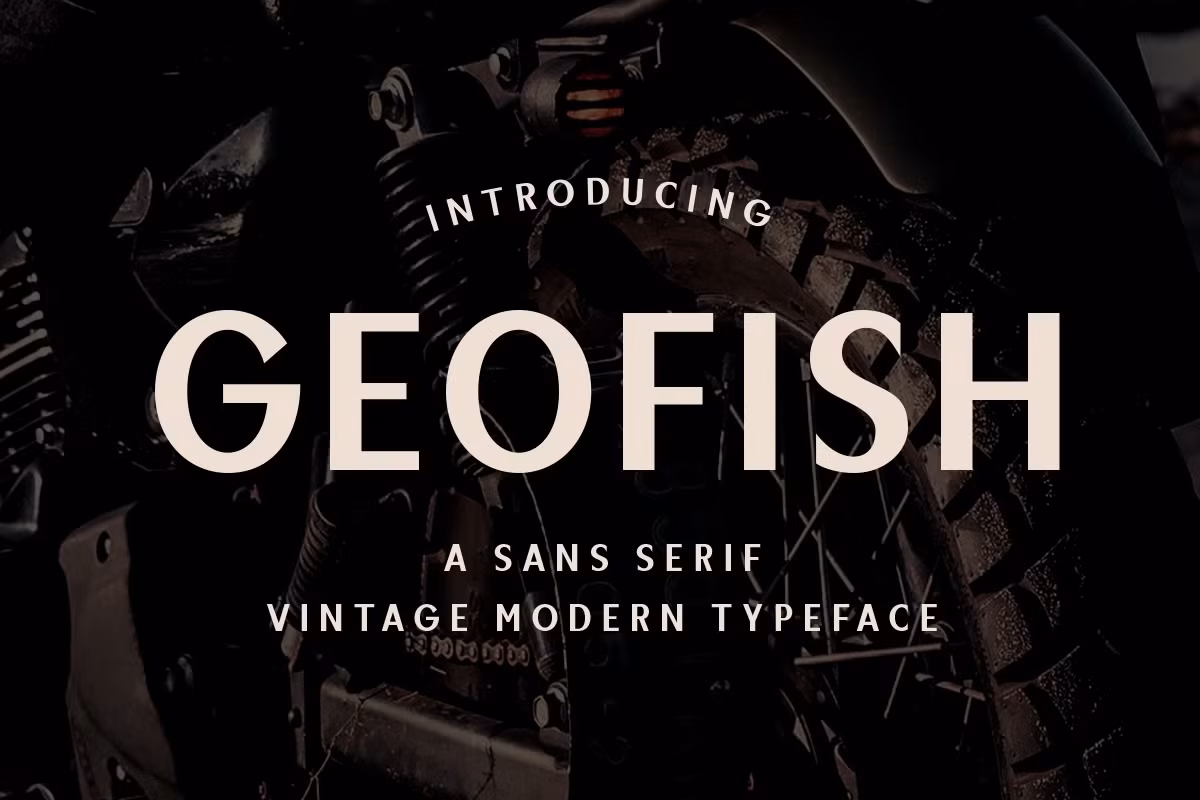
Geofish Vintage Font Free Download
Geofish Vintage Font Free Download is a bold and stylish typeface inspired by retro design elements, combining classic vintage aesthetics with a modern flair. With its sharp, clean lines and distinctive letterforms, this font is perfect for creating logos, branding materials, posters, and retro-themed projects. Whether you're working on a nostalgic brand identity, a music album cover, or a vintage event invitation, Geofish Vintage Font Free Download offers versatility and timeless charm. Explore its unique design in personal projects before purchasing a commercial license and add a touch of old-school style to your designs with this beautifully crafted vintage font.